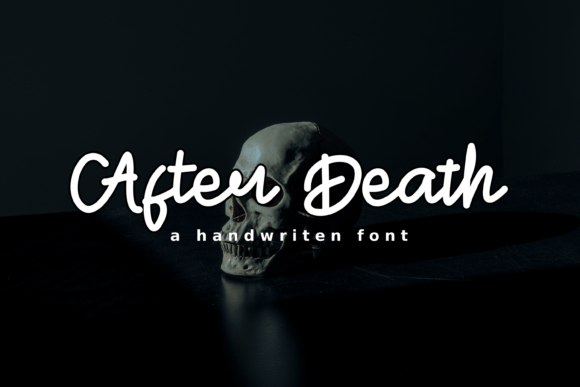
The Elusive Perfect Font: My Journey with After Death
I still remember the design project that had me stuck in a font loop. My client wanted a script font that was both elegant and easy to read for their branding and packaging. I scoured the internet, tried out countless fonts, but nothing seemed quite right. That was until I stumbled upon After Death, a beautiful script typeface that has since become a staple in my design toolkit.
First Impressions: A Love Affair with After Death
After Death is a script typeface inspired by brush lettering, boasting a soft and welcoming look that’s perfect for a variety of design applications. Here’s what I love about it:
- ✨ Easy to read: Despite its elegant appearance, After Death remains highly legible, even at smaller font sizes.
- ✅ Smooth lines: The font’s brush lettering inspiration gives it a beautifully smooth, fluid feel that’s perfect for creating striking headlines or adding a touch of sophistication to branding and packaging.
- 💫 Versatile: Whether you’re working on a logo, business card, or website, After Death adapts seamlessly to different design contexts.
A Few Quirks to Keep in Mind
No font is perfect, and After Death is no exception. Here are a few things to keep in mind:
- 🤔 Limited use in very small sizes: While generally easy to read, After Death can get a bit lost in very small font sizes (below 10pt). It’s best used at larger sizes where its elegance can shine.
- ⚠️ Some letters may require manual kerning: As with any script font, you may need to adjust the kerning between certain letter combinations to achieve optimal spacing.
After Death comes with a range of OpenType features, glyphs, and stylistic alternates that can elevate your designs. Take some time to explore:
- Stylistic alternates: Many script fonts, including After Death, offer alternative letterforms that can add variety to your text.
- Glyphs: Look for special characters like ligatures, which can connect certain letter combinations for a more fluid look.
The Story Behind After Death
While the true story behind After Death’s creation may be lost to the ages, it’s easy to imagine a designer sitting down with a brush and ink, inspired by the fluid lines and elegant curves of traditional brush lettering. Perhaps they wanted to create a font that would bring a touch of warmth and personality to digital designs. Whatever the inspiration, After Death is a beautiful addition to the world of typography.
| What is After Death font best used for? | After Death is versatile and can be used for branding, packaging, website headers, and anywhere you need a beautiful, easy-to-read script font. |
| Is After Death suitable for body text? | While After Death is generally easy to read, it’s best used for headlines or short paragraphs. For longer body text, a more traditional serif or sans-serif font might be more suitable. |